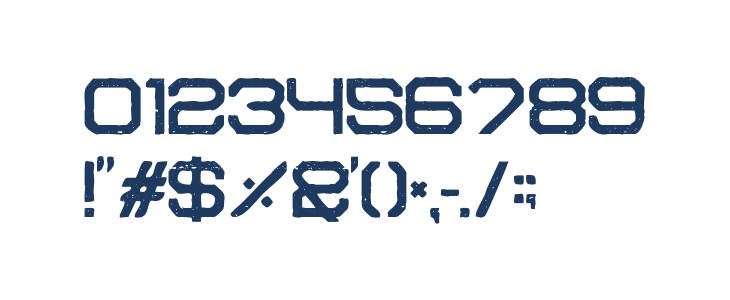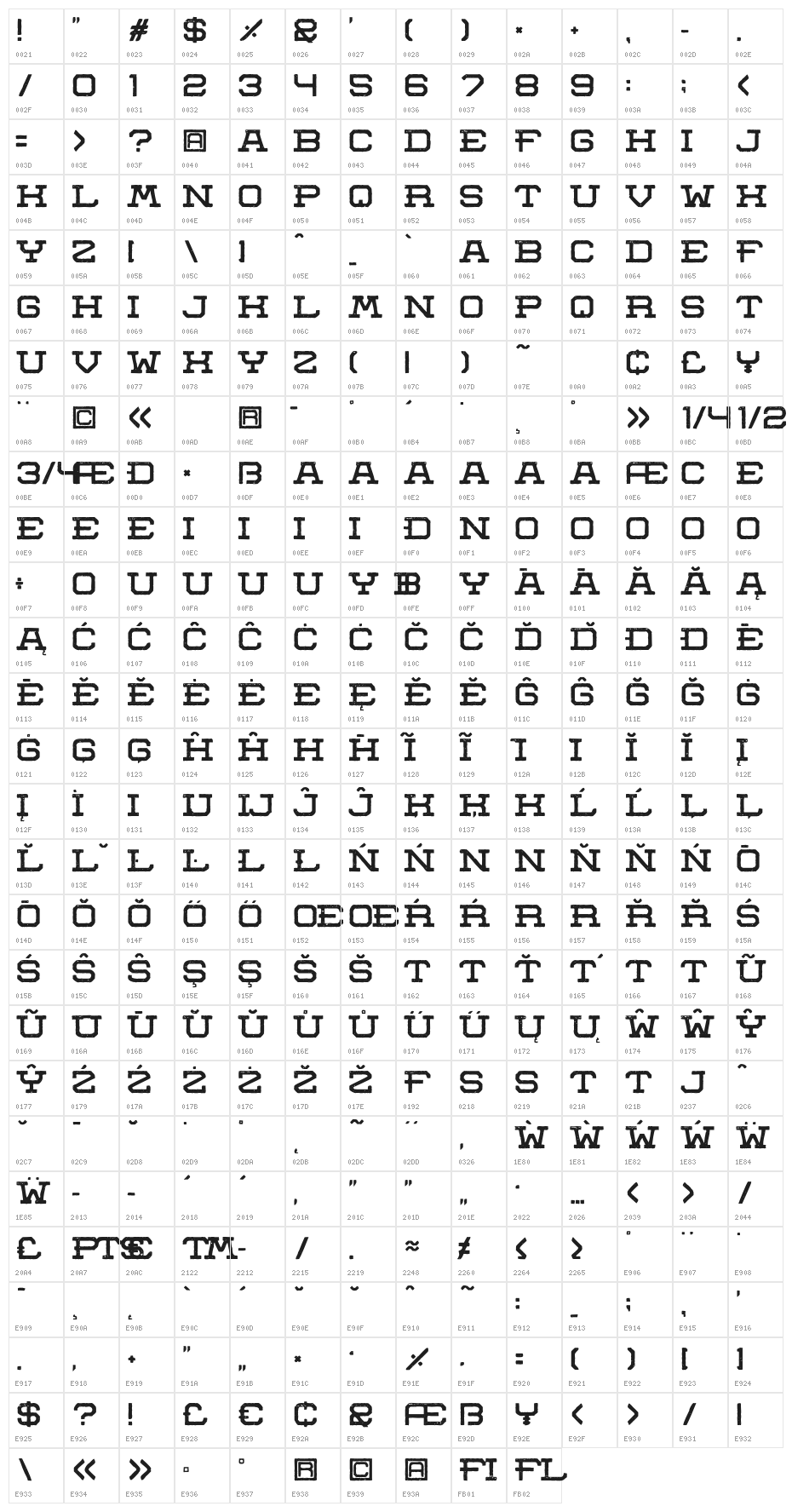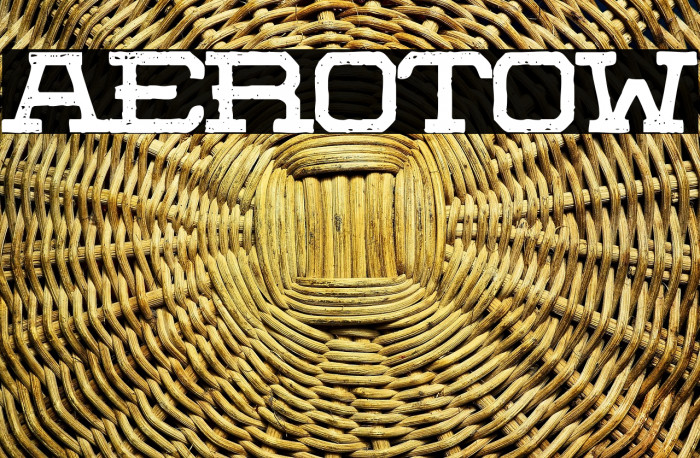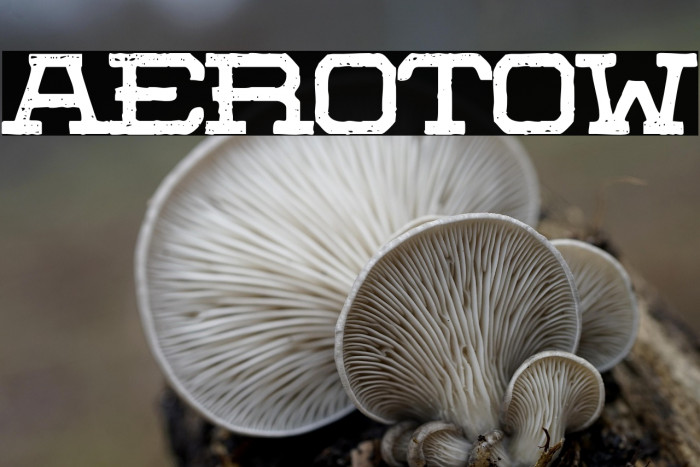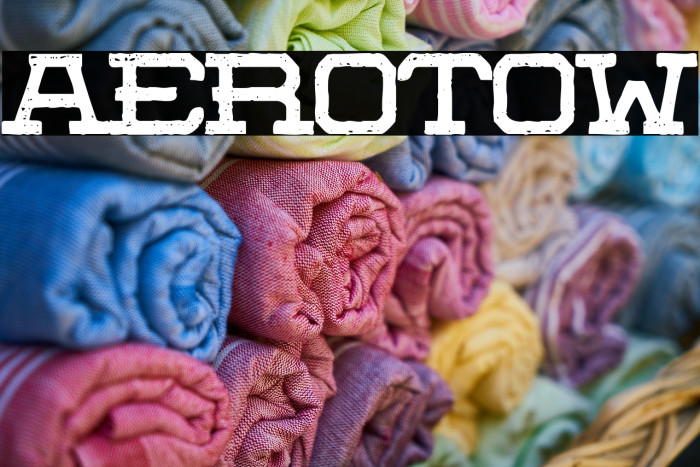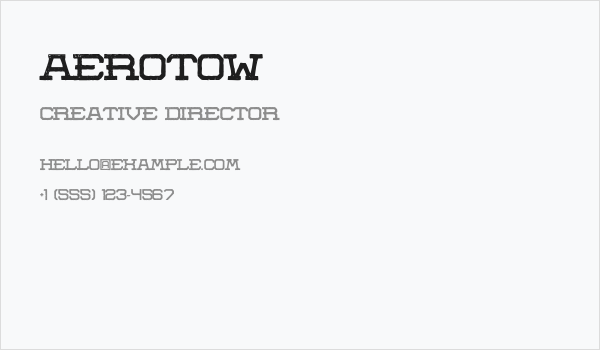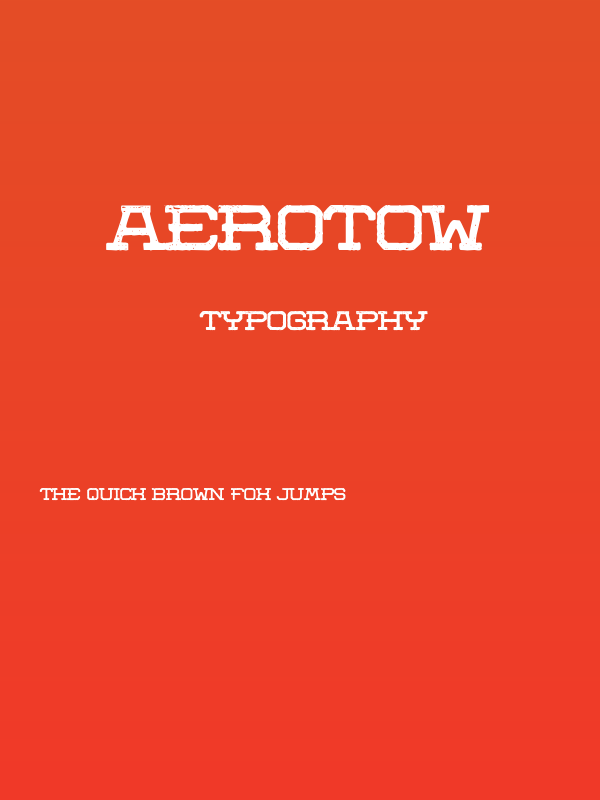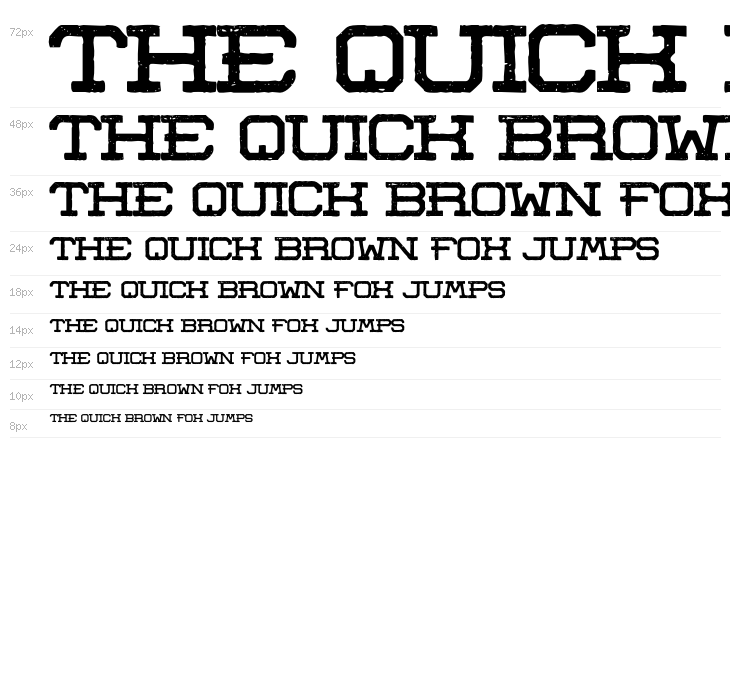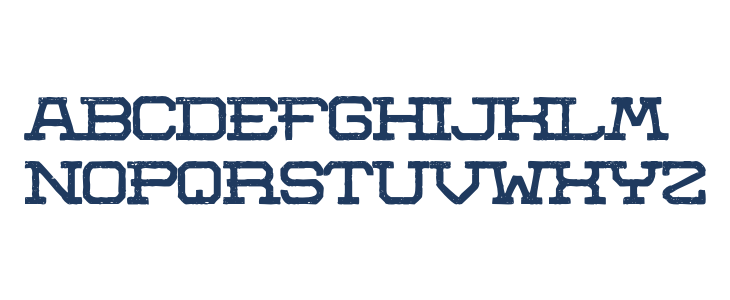
Aerotow Font
Aerotow Description
This font features a rugged, distressed appearance, reminiscent of vintage typewriter or industrial print styles. The characters are bold and have a textured, worn effect that gives them a unique, aged look. The uppercase and lowercase letters maintain a consistent style, with a uniform width and height that enhances readability. The numerals and special characters follow the same design, ensuring a cohesive appearance across all text. The font's rough edges and uneven strokes contribute to its distinctive, handcrafted feel, making it ideal for projects that require a touch of nostalgia or a gritty aesthetic.
| Proposed Projects | Ideal for vintage posters, industrial-themed designs, branding for rugged products, and creative projects seeking a retro or gritty aesthetic. |